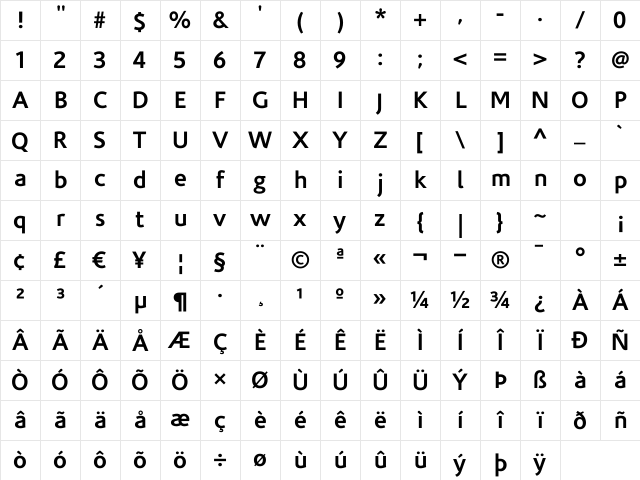
CorisandeBold Regular Free Font
CorisandeBold Regular
Design Context for CorisandeBold
CorisandeBold is a composed and adaptable typeface that performs quietly and consistently across a wide range of design contexts. Its bold stroke weight gives it real presence on the page.